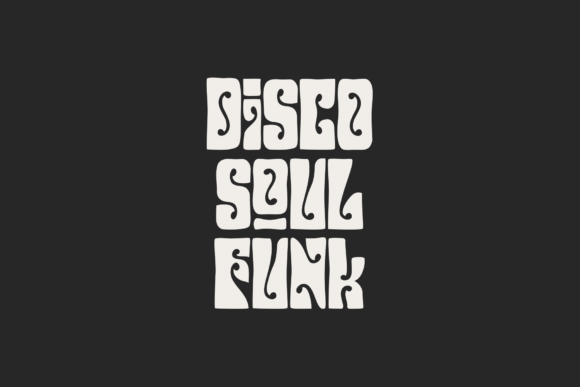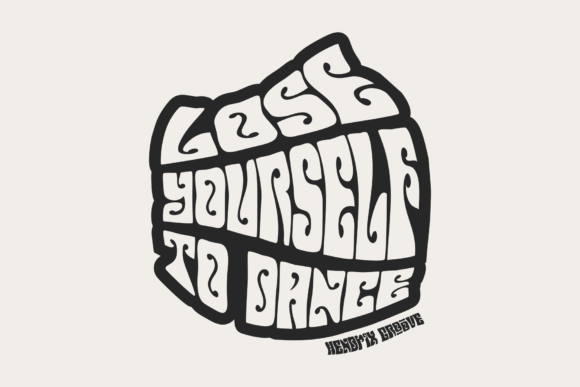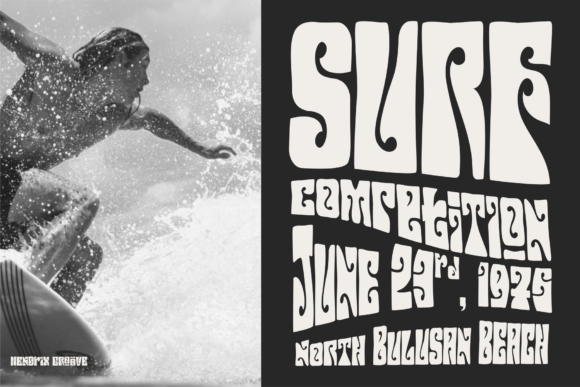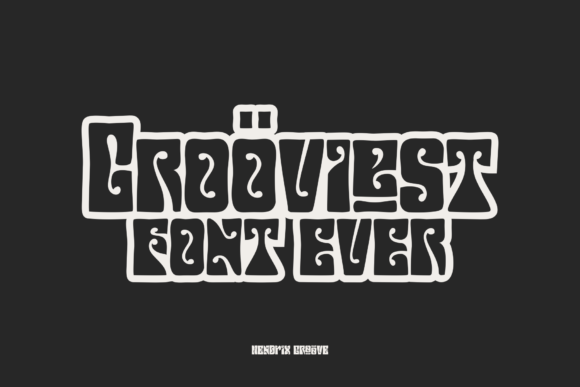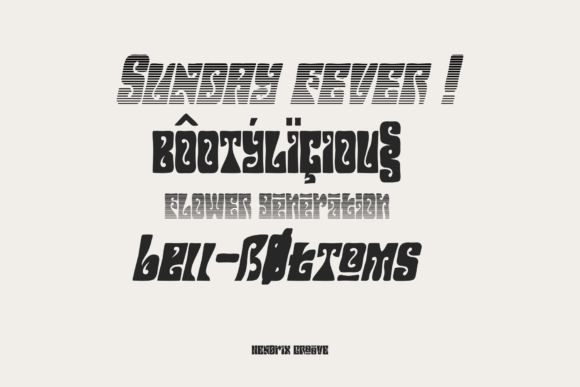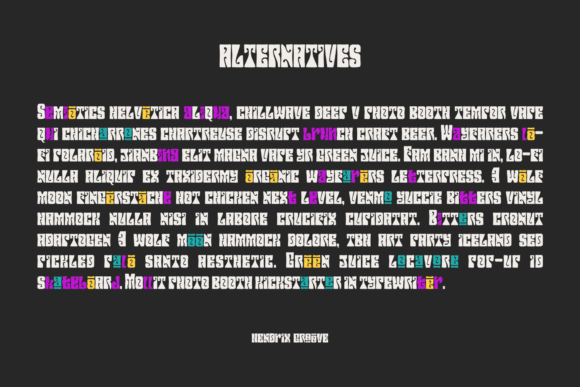
Get Ready to Groove with the Ultimate Design Companion
Have you ever been stuck on a design project, searching for that perfect font to bring your vision to life? You know, that moment when the creative wheels start turning, and you’re like “I need something that screams funk, something that makes me want to dance?” Well, we’ve got you covered! Introducing the Hendrix Groove Font, a display font that embodies the essence of disco, soul, and funk.
This fabulous font is not just a pretty face; it’s a valuable asset for designers looking to add some serious flair to their projects. With its groovy vibes and versatile styles (regular, italic, gradient, and gradient italic), the Hendrix Groove Font is the perfect companion for any design adventure. Whether you’re working on a fashion campaign, a music festival poster, or just want to add some fun to your social media graphics, this font is sure to make your design instantly MARVY!
Hendrix Groove Font Key Features
- Font Family: Hendrix Groove, a unique and stylish font designed to evoke the spirit of Jimi Hendrix.
- Unique Characteristics: Features a distinctive, hand-drawn aesthetic with subtle irregularities and expressive flourishes, adding a touch of personality to any design.
Hendrix Groove Font Review
The Hendrix Groove Font has some really cool aspects that can make it shine in certain designs. ✨ One of its strongest features is its ability to evoke a 60s and 70s vibe, perfect for music-related projects or retro-themed websites. It’s also quite versatile, working well for both body text and headings. ✨ The font’s irregularities and imperfections give it a unique, handmade feel that can add character to a design.
However, there are some limitations to consider. ⚠️ For one, the font may not be suitable for projects that require a more modern or minimalist aesthetic. Its bold and ornate style can be overwhelming in certain contexts. Additionally, the font’s irregularities can sometimes make it difficult to read, particularly in smaller text sizes. ⚠️
Overall, I’d say the Hendrix Groove Font is a great choice for projects that require a nostalgic or retro vibe. It’s perfect for music-related designs, advertising, or websites that want to evoke a sense of nostalgia. However, it may not be the best fit for every project.
Key Points:
- Unique, handmade feel
- Evokes a 60s and 70s vibe
- Perfect for music-related projects or retro-themed designs
- Can be overwhelming in modern or minimalist designs
- May be difficult to read in smaller text sizes
Tips for Getting the Most Out of the Hendrix Groove Font
To get the most out of the Hendrix Groove Font, try using it in combination with bold or italic styles to create a dynamic and eye-catching effect.
Also, experiment with different font sizes and colors to create a unique and personalized look.